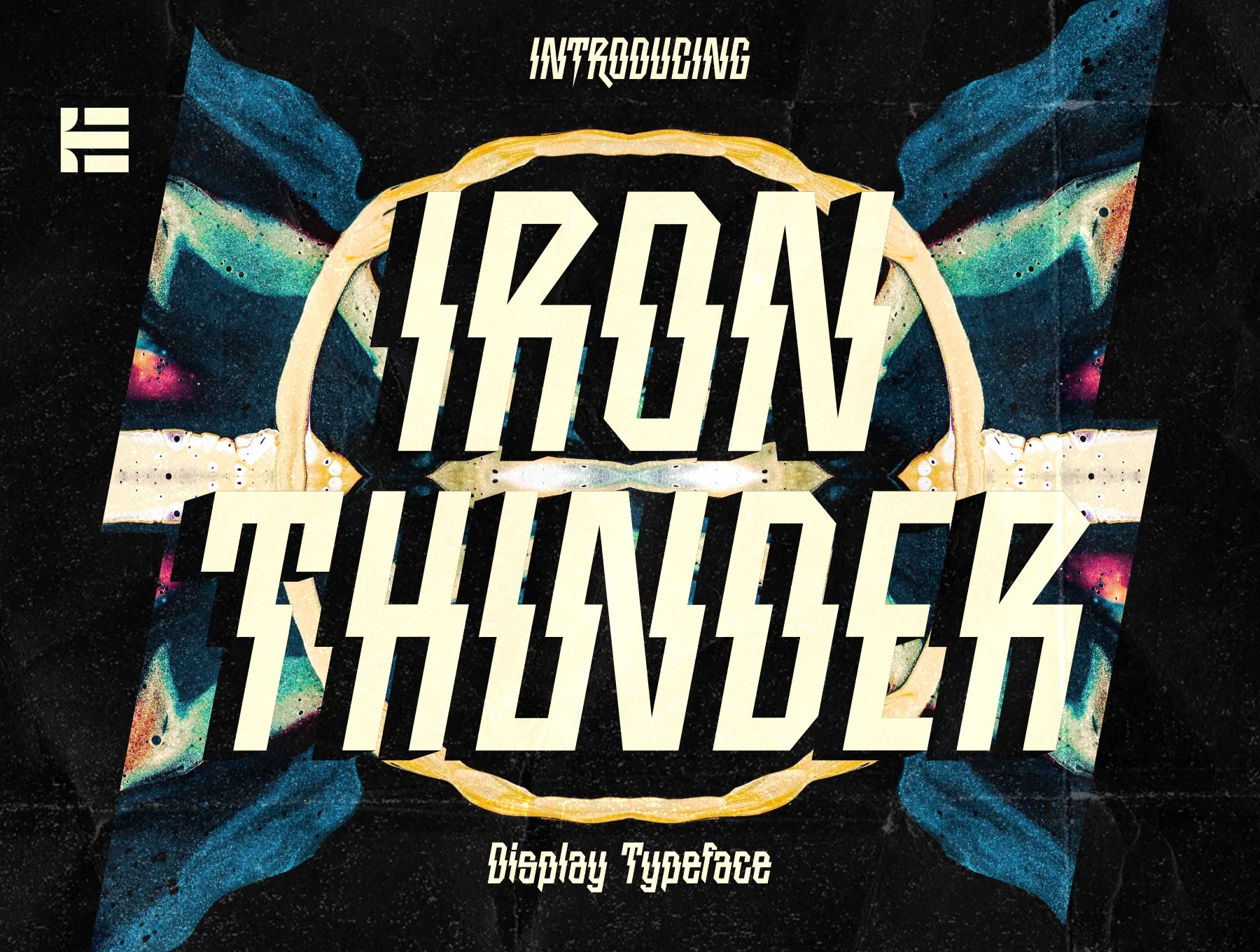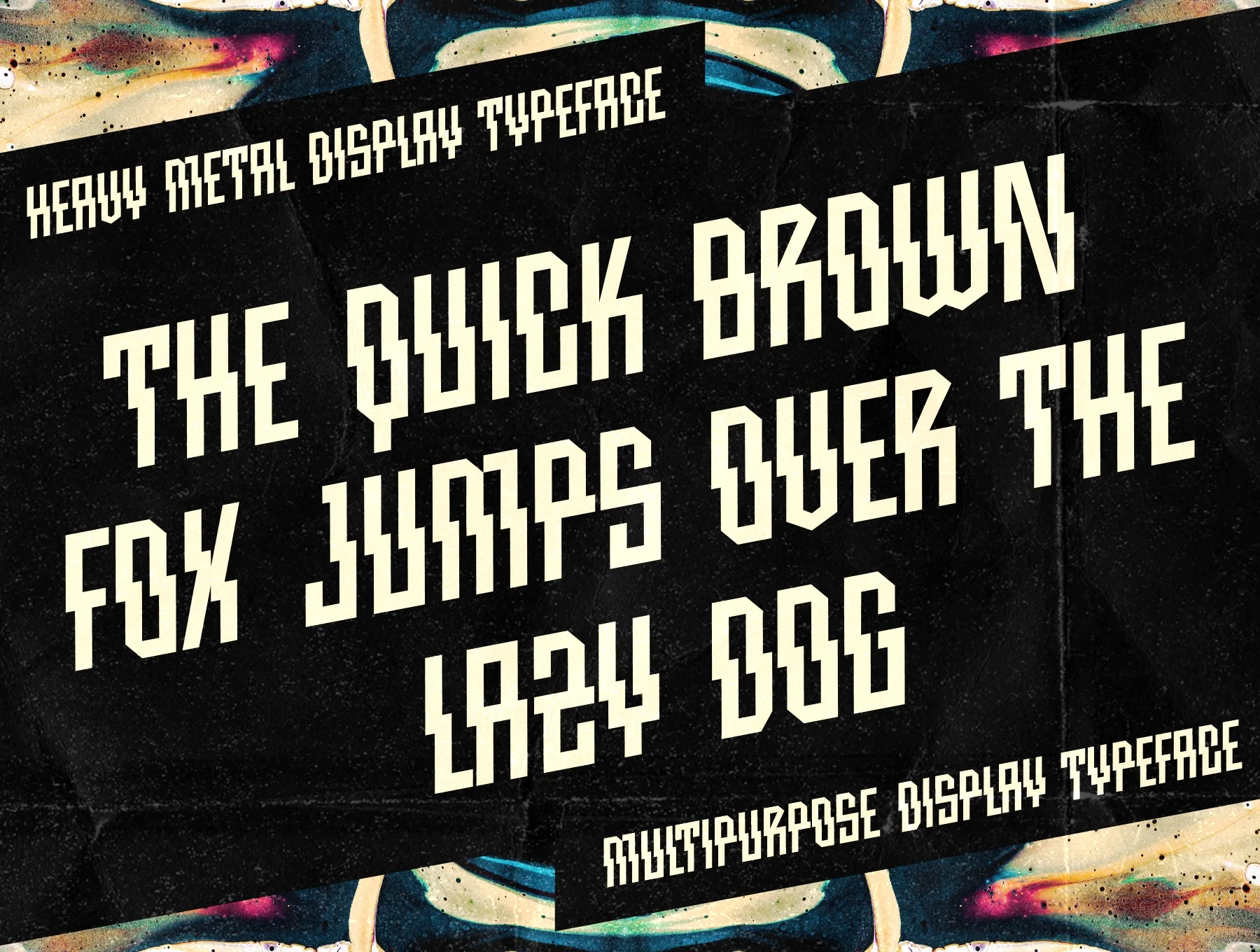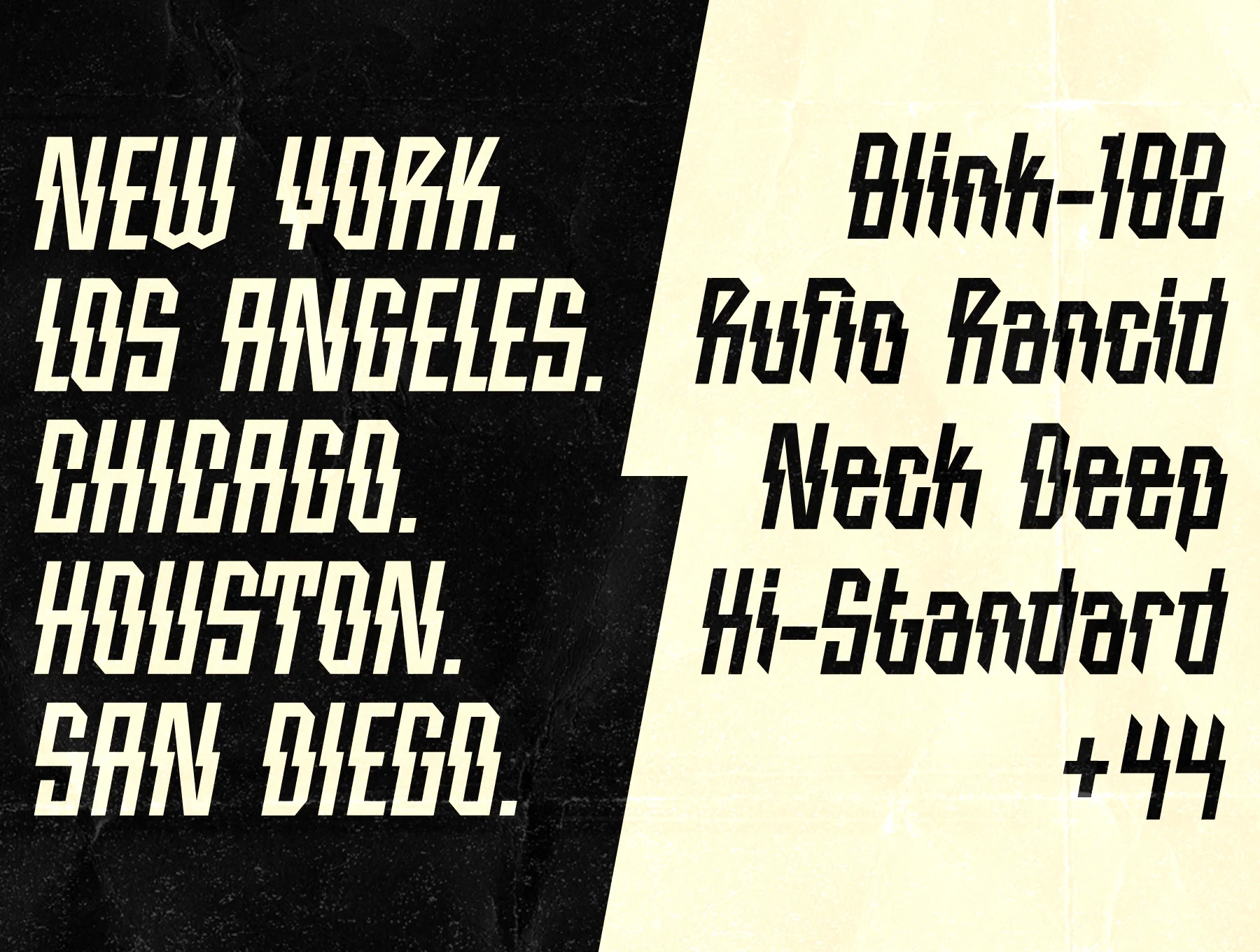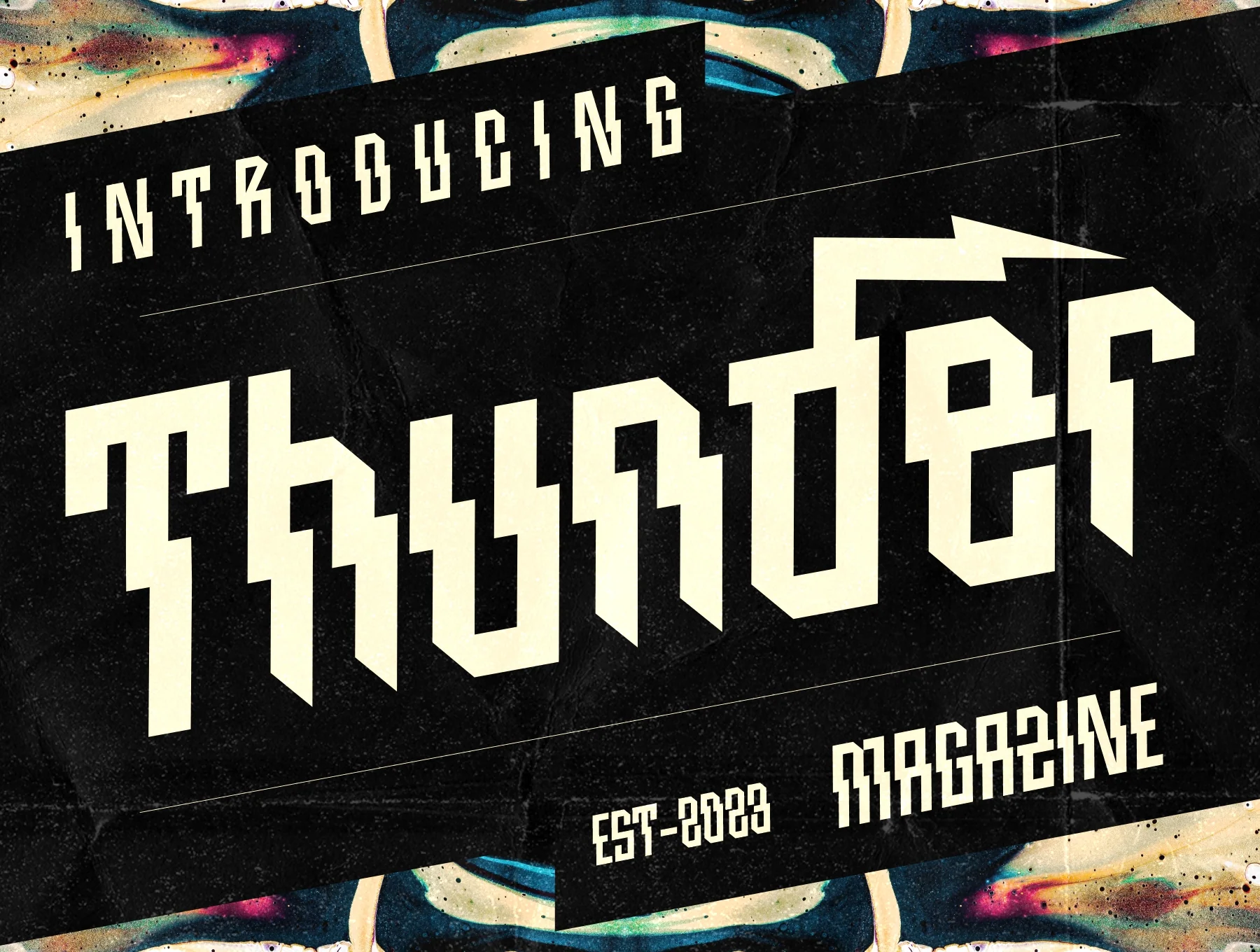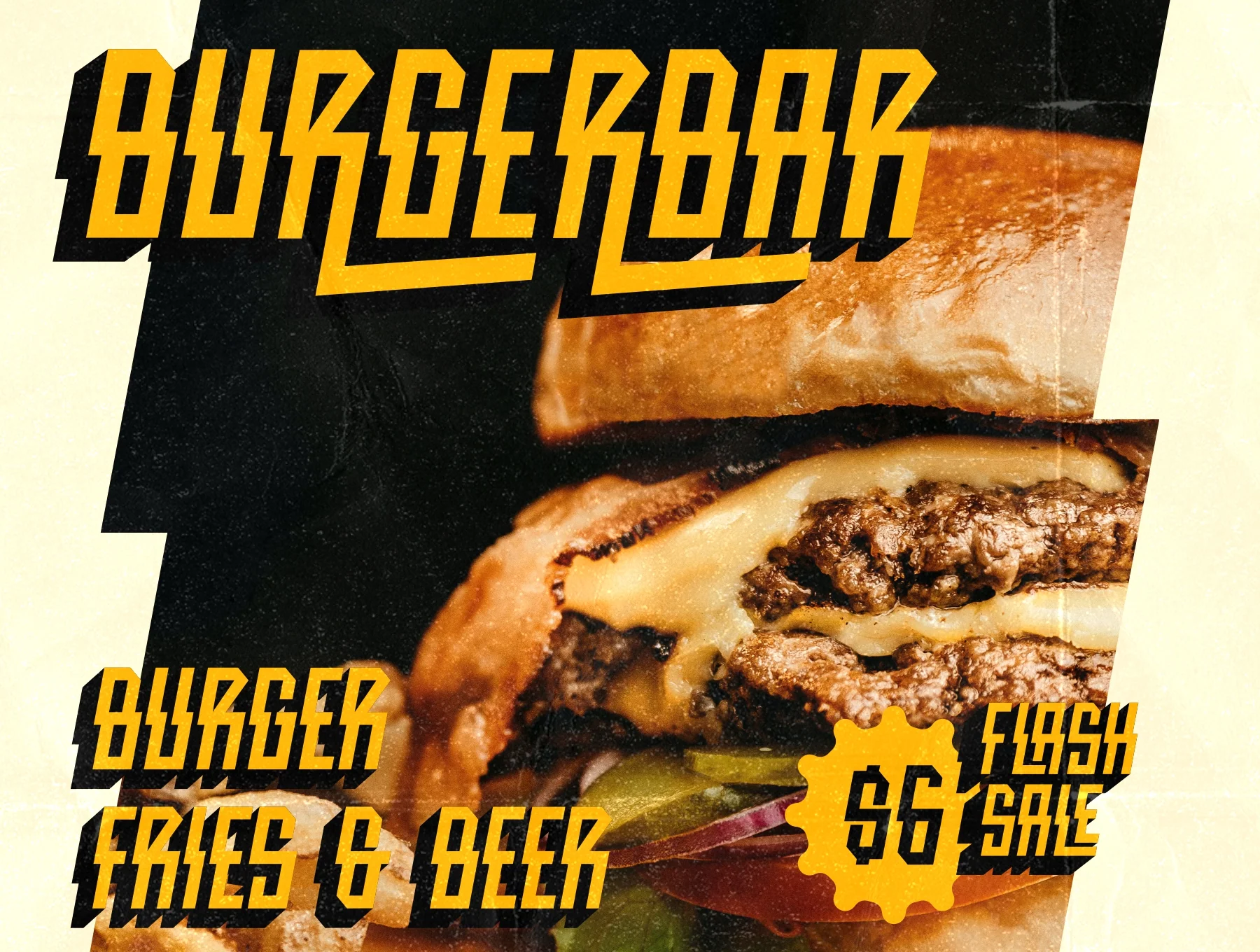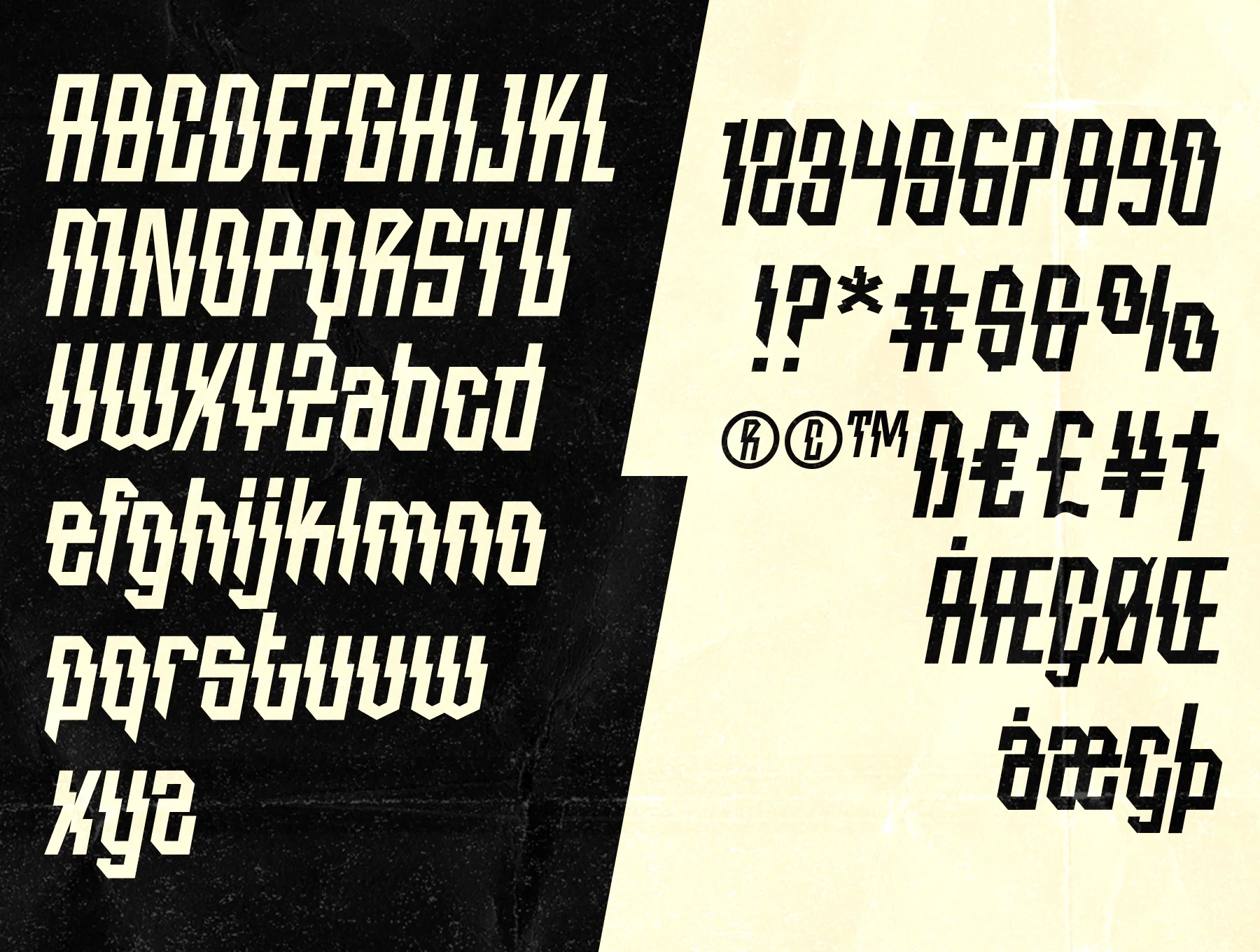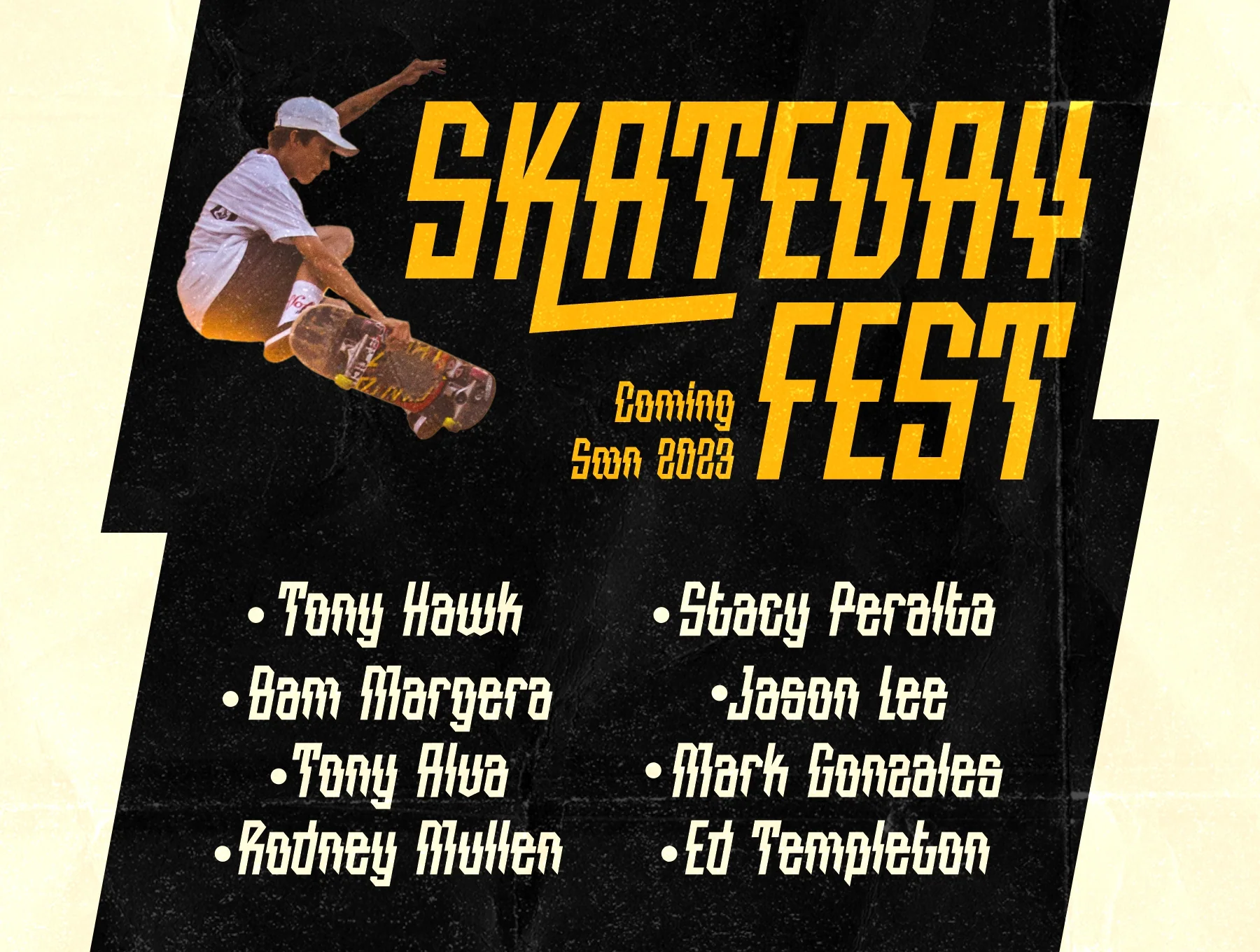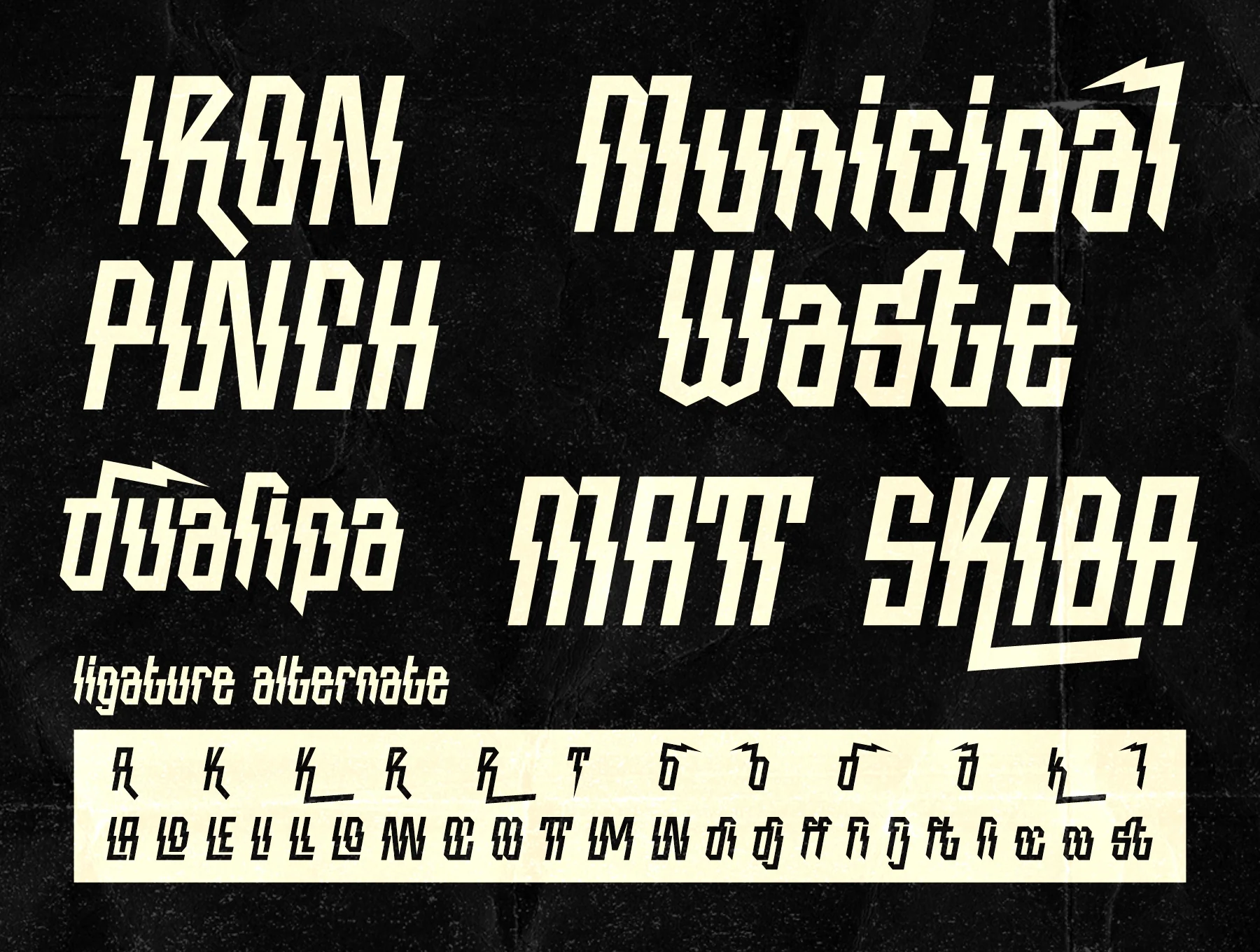
Iron Thunder - Display Font
Basic glyph
Numbers and punctuation
Standard weight
Alternate styles and ligatures
Iron Thunder is a distinctive condensed display typeface inspired by lightning strikes. Ideal for retro, vintage, and hipster styles, it works well for branding, posters, logos, magazines, headlines, stickers, and more. Includes alternates and ligatures.